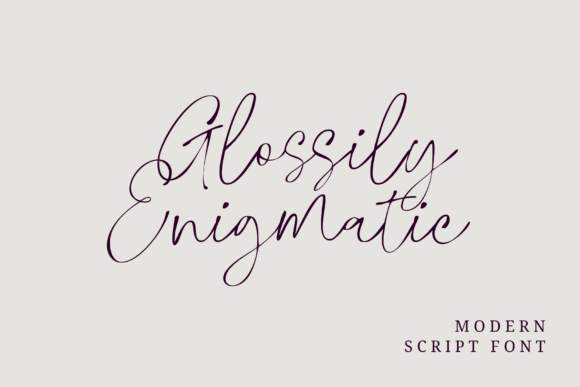
Embark on a typographic voyage with Glossily Enigmatic, a captivating script font family that exudes elegance and charm. Its meticulous hand-drawn strokes evoke a sense of authenticity and warmth, reminiscent of handwritten love letters and timeless works of literature. Prepare to be spellbound by its alluring curves and graceful flourishes as they dance across your design projects, leaving an unforgettable impression.
With Glossily Enigmatic, you're not just downloading a font; you're inviting a storyteller into your creative realm. Its versatile nature lends itself effortlessly to a myriad of design endeavors, whispering tales of love and longing in wedding invitations, murmuring secrets in personal stationery, and adding a touch of intrigue to logos and branding. Whether you're composing thought-provoking social media quotes or crafting a distinctive brand identity, Glossily Enigmatic will be your eloquent companion, guiding your words to new heights of expression.
Picture a wedding invitation adorned with Glossily Enigmatic's graceful characters, each letter a delicate brushstroke, inviting guests to a celebration filled with romance and elegance. Envision stationery imbued with a touch of vintage charm, as Glossily Enigmatic's timeless curves carry your heartfelt messages across the page. Your social media posts will radiate a unique charm with Glossily Enigmatic, captivating your audience with its enchanting aura. And as you meticulously design your logo or branding, Glossily Enigmatic will lend its distinctive voice, ensuring your brand stands out amidst the noise.
With Glossily Enigmatic, you're acquiring more than a mere font; you're embracing a font architectured to inspire, to captivate, and to create an indelible impact. Its alluring curves and emotive strokes will transform your designs into captivating narratives, leaving a lasting impression on all who encounter them.